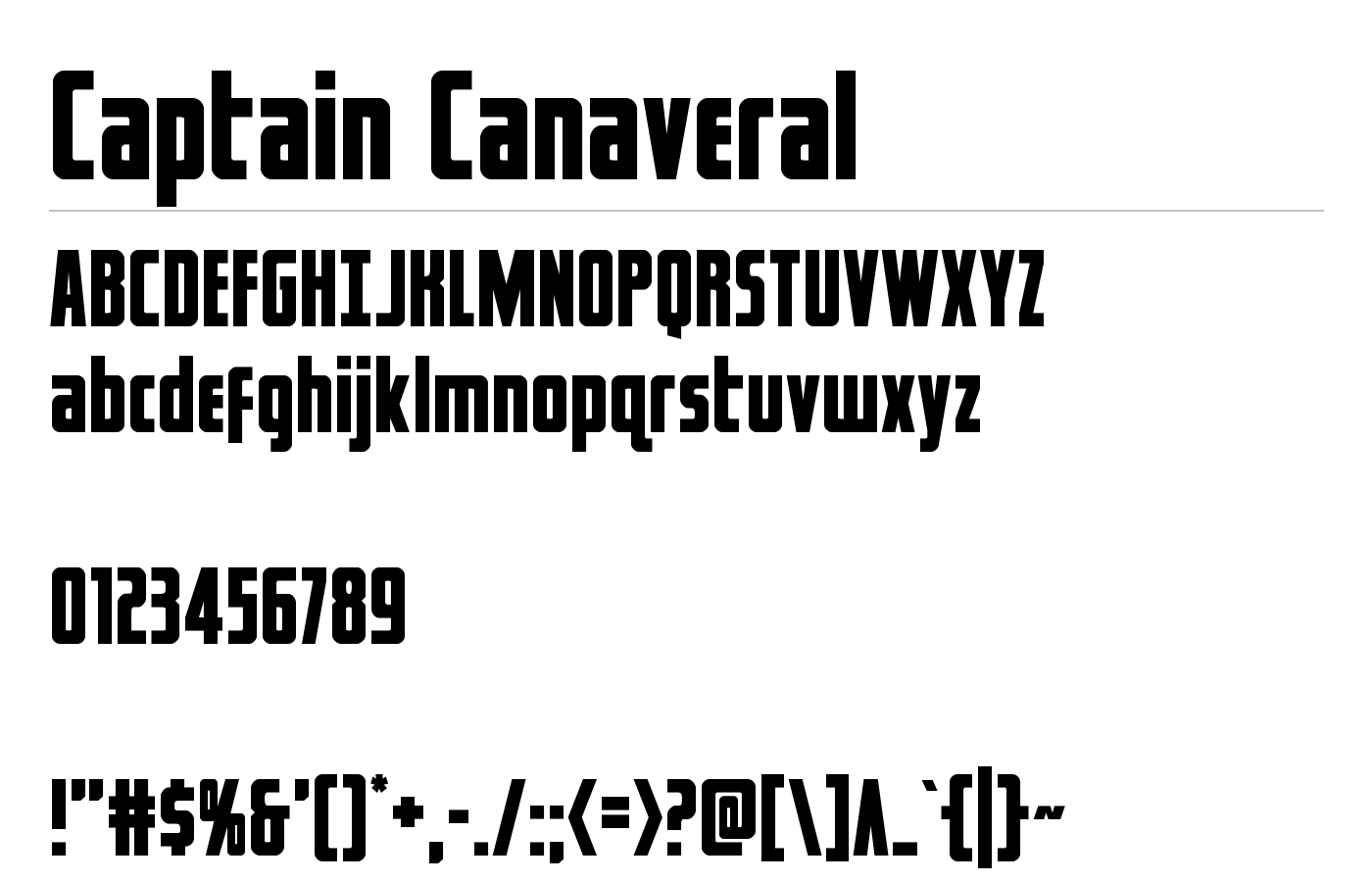
Captain Canaveral is a bold, condensed sans serif font with a strong, industrial character and a slightly futuristic edge. Its tall, narrow letterforms with consistent stroke weight create a commanding presence, ideal for impactful headlines, logos, and branding that require a modern, assertive look. This font works well for projects that want to convey strength, precision, and a cool, technical vibe.
Captain Canaveral Font
About Captain Canaveral Font